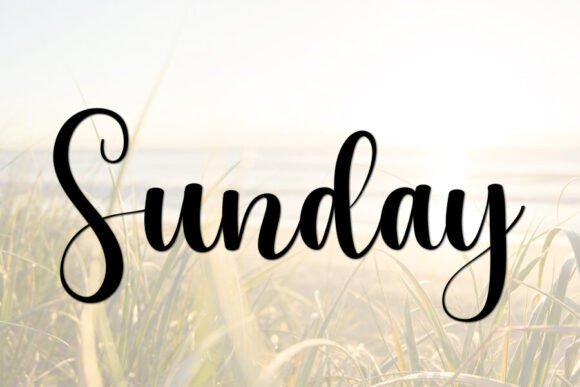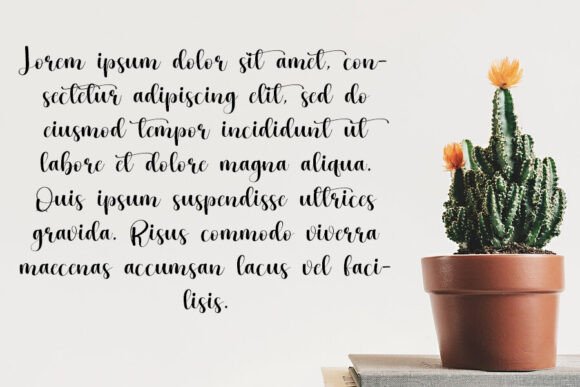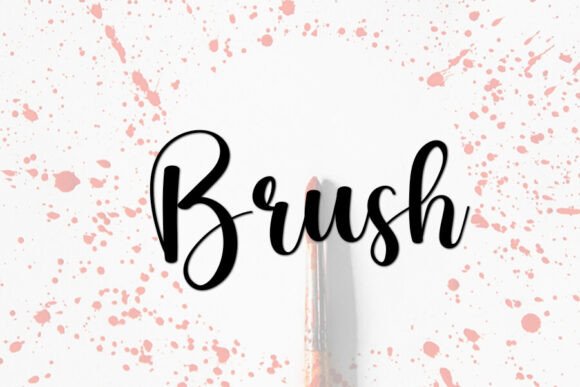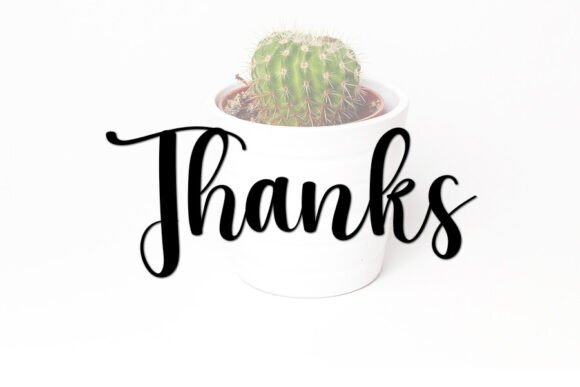
Introducing Cactus Font: Elevate Your Designs with Elegance and Simplicity
Have you ever been in the middle of a design project, and suddenly, you’re stuck on finding the perfect font? I recall a recent experience where I was working on a client’s wedding invitation, and my usual go-to fonts just weren’t cutting it. The design needed something fresh, elegant, and unique. That’s when I stumbled upon the ‘Cactus’ font, and it completely transformed my design.
The ‘Cactus’ Font: A Game-Changer for Designers and Crafters
‘Cactus’ is more than just a font; it’s a design essential that breathes life into your creative projects. Whether you’re working on captivating YouTube banners, professional cover logo mockups, bespoke wedding invitations, or identity cards, this font is designed to elevate your business and catalyze growth effortlessly.
An Honest Review of Cactus Font
What I Love About Cactus Font
• ✨ Elegant and Simple Design: The ‘Cactus’ font strikes the perfect balance between simplicity and uniqueness, making it versatile for various design projects.
• ✅ Highly Versatile: From digital designs like YouTube banners to print materials like wedding invitations and flyers, ‘Cactus’ adapts seamlessly.
• 💡 OpenType Features and Glyphs: The font comes with a range of OpenType features, glyphs, and stylistic alternates, allowing for extensive customization.
While ‘Cactus’ is an excellent font, there are a few things to keep in mind:
• ⚠️ Limited Use in Serif Contexts: Given its elegant and cursive nature, ‘Cactus’ might not be the best fit for projects requiring serif fonts or a more traditional look.
• 🤔 Requires Some Learning for Advanced Features: To fully utilize the OpenType features and glyphs, you might need to spend some time learning how to access and use them in your design software.
The Backstory of Cactus Font
The ‘Cactus’ font was inspired by the serene and resilient desert plant. The designer aimed to capture its elegance and simplicity in a typography that could elevate any design project. The inspiration came from long walks in the desert, observing the shapes and lines of cacti and translating them into a beautiful, versatile font.
Q: Is Cactus Font Suitable for Body Text?
A: While ‘Cactus’ is elegant and easy to read, it’s primarily designed for headings and titles. For body text, you might prefer a font with better readability in smaller sizes.
Q: Does Cactus Font Support Multiple Languages?
A: ‘Cactus’ supports a wide range of languages, but it’s essential to verify the specific language support to ensure it meets your project’s needs.